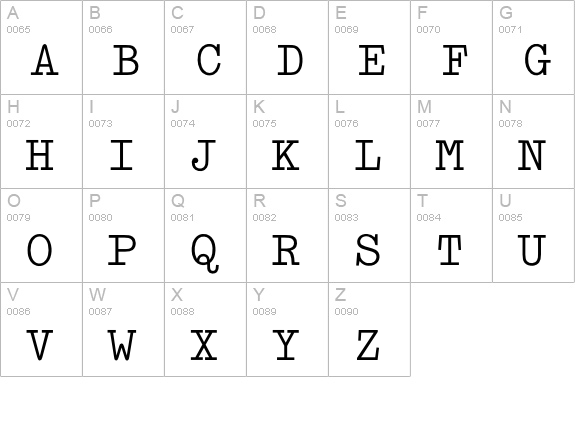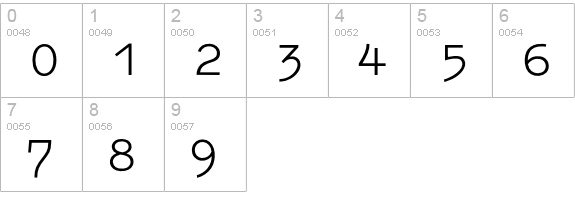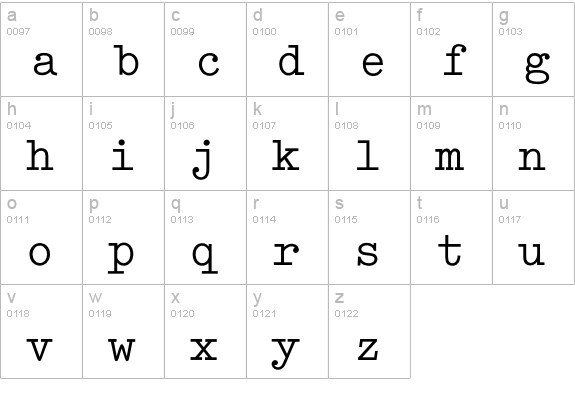
SchMa Font Details
Introducing SchMa font, a stunning and versatile typeface that is sure to captivate and elevate your design projects to new heights. With its sleek and modern aesthetic, SchMa font effortlessly combines sophistication and contemporary flair, making it the perfect choice for a wide range of creative endeavors. This exquisite font showcases a unique blend of clean lines, elegant curves, and carefully crafted letterforms, resulting in a harmonious and visually pleasing composition. Whether used for headlines, logos, posters, or any other design application, SchMa font exudes a sense of professionalism and refinement that is guaranteed to leave a lasting impression. One of the most exceptional aspects of SchMa font is that it is freely available to download at FontsMarket.com. This means that you can access this remarkable typeface without any financial constraints, allowing you to unleash your creativity without limitations. Embracing the spirit of accessibility and inclusivity, SchMa font empowers designers of all backgrounds to bring their visions to life. With a vast array of weights and styles, SchMa font offers endless possibilities for customization and experimentation. Whether you prefer a bold and commanding look or a more delicate and refined touch, this font has got you covered. The versatility of SchMa font ensures that it can seamlessly adapt to any design concept, enhancing the overall visual impact and ensuring a cohesive and polished result. Furthermore, the attention to detail in SchMa font is truly remarkable. Each glyph has been meticulously crafted, ensuring optimal legibility and readability at any size. This meticulousness extends to the extensive language support that SchMa font offers, making it suitable for global audiences and multilingual projects. In conclusion, SchMa font is a true gem in the world of typography, offering a harmonious blend of style, versatility, and accessibility. With its sleek and modern design, extensive customization options, and free availability at FontsMarket.com, SchMa font is a must-have for any design enthusiast looking to make a bold and impactful statement. Download SchMa font today and unlock the boundless potential of your creative endeavors.